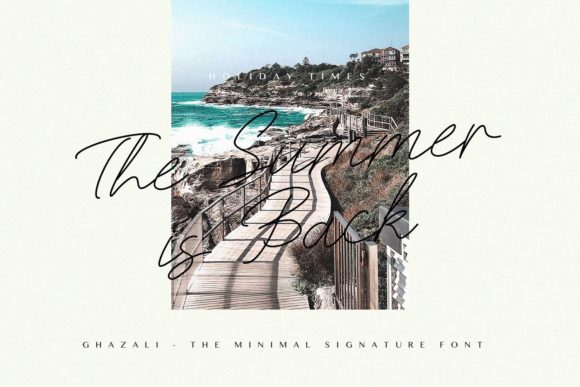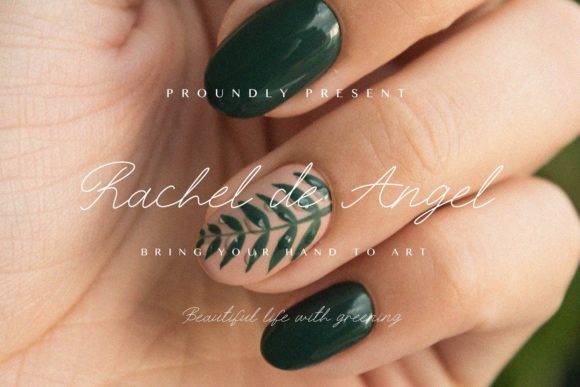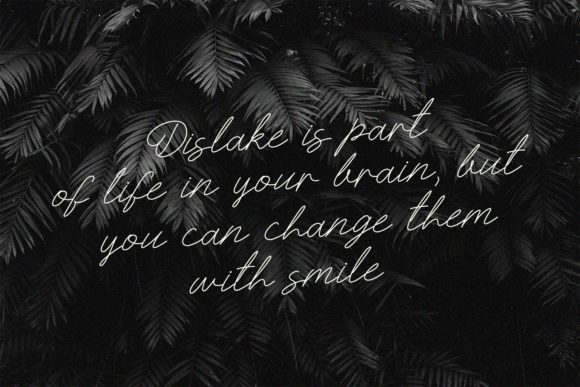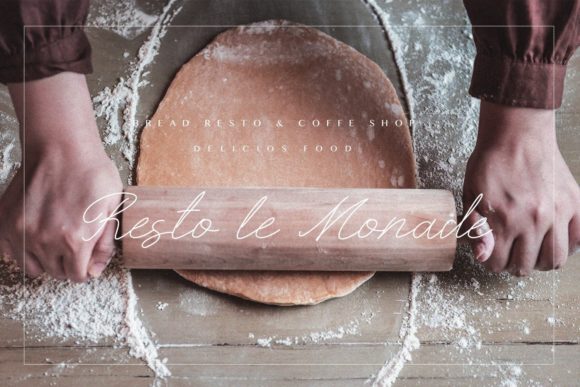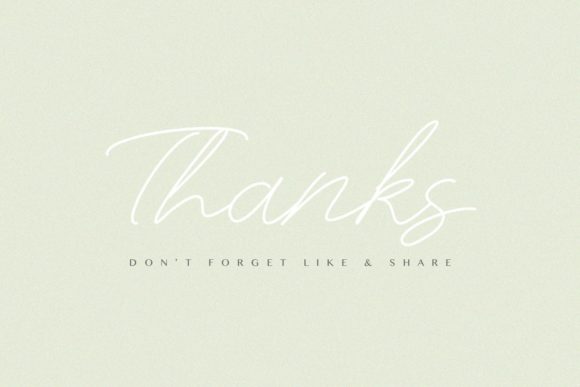
Ghazali Font: Elevate Your Designs with Elegance and Sophistication
Ghazali is a sophisticated script font that has been making waves in the design world with its contemporary and elegant style. This beautiful font is perfect for designers and crafters looking to add a touch of luxury and refinement to their projects. In this article, we’ll dive into the world of Ghazali Font, exploring its features, uses, and benefits, as well as provide tips on how to make the most of this stunning script font.
The Story Behind Ghazali Font
Ghazali Font is a modern script font that boasts a unique blend of classic and contemporary elements. Its elegant and sophisticated design makes it perfect for a wide range of applications, from branding and advertising to packaging and digital media. The font’s creator aimed to craft a typeface that would exude refinement, poise, and style, and they certainly succeeded.
Key Features of Ghazali Font
So, what makes Ghazali Font so special? Here are some of its key features:
- Elegant and Refined Design: Ghazali Font features a beautiful, flowing script design that’s perfect for creating sophisticated and eye-catching headlines, titles, and text.
- Contemporary Style: This font boasts a modern and fresh feel, making it ideal for designers looking to create unique and stylish designs.
- High Versatility: Ghazali Font can be used for a wide range of applications, from digital media to print materials, and is suitable for both personal and commercial projects.
- Easy to Read: Despite its elegant and cursive design, Ghazali Font is surprisingly easy to read, making it perfect for body text and longer passages.
Uses of Ghazali Font
Ghazali Font is an incredibly versatile typeface that can be used in a variety of contexts. Here are some ideas to get you started:
- Branding and Logo Design: Use Ghazali Font to create stunning logos, business cards, and brand identities that exude elegance and sophistication.
- Advertising and Marketing: This font is perfect for creating eye-catching headlines, titles, and taglines for ads, flyers, and marketing materials.
- Packaging Design: Add a touch of luxury to your packaging designs with Ghazali Font, perfect for high-end products and premium brands.
- Digital Media: Use Ghazali Font to create stunning social media graphics, blog posts, and website headers that are sure to impress.
Tips for Using Ghazali Font
To make the most of Ghazali Font, here are some tips to keep in mind:
- Pair with Simple Fonts: Pair Ghazali Font with simple, sans-serif fonts to create a beautiful contrast and add visual interest to your designs.
- Use for Headlines and Titles: Ghazali Font is perfect for headlines and titles, so use it to create eye-catching and attention-grabbing text.
- Keep it Simple: While Ghazali Font is elegant and sophisticated, it’s still a script font. Keep your designs simple and avoid over-accessorizing.
Ghazali Font is a stunning script font that’s perfect for designers and crafters looking to add a touch of elegance and sophistication to their projects. With its contemporary and refined design, high versatility, and ease of use, Ghazali Font is sure to become a favorite in your design arsenal. So why wait? Get inspired by Ghazali Font today and take your designs to the next level!